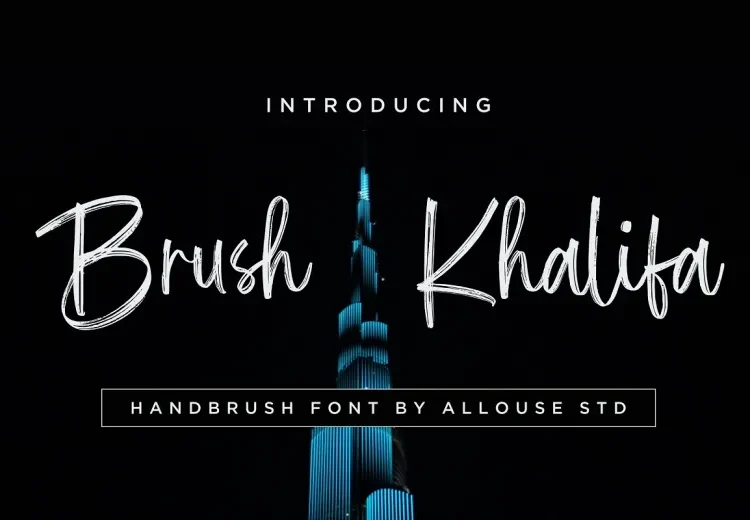
Brush Khalifa Font
Brush Khalifa is a stylish and sophisticated brush script typeface that brings a modern, artistic flair to your design projects. Its flowing, hand-painted strokes create a sense of elegance and charm, making it a versatile choice for a variety of applications:
• Packaging: Elevate product packaging with the unique, artistic touch of Brush Khalifa, making your items stand out on the shelf.
• Branding Projects: Enhance brand identity with the distinct and fashionable style of this script, perfect for logos and brand materials.
• Magazines: Use Brush Khalifa to add a creative and eye-catching element to magazine layouts, especially in headlines and feature titles.
• Wedding Invitations: Add a personal and elegant touch to wedding stationery, ensuring that your invites leave a lasting impression.
• Social Media: Make your posts and content more visually appealing with the dynamic and expressive style of Brush Khalifa.
• Text Overlays: Even when placed over busy or unattractive backgrounds, Brush Khalifa ensures your text is not just readable but also stylish and impactful.